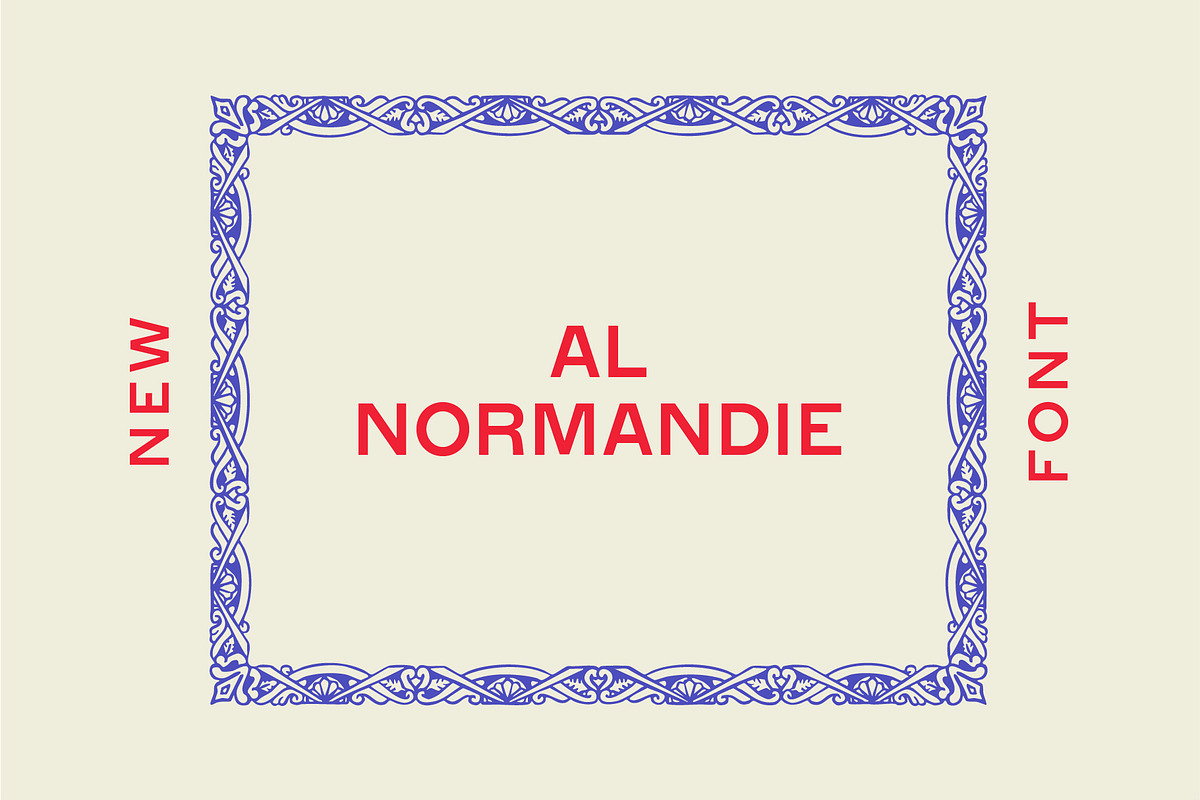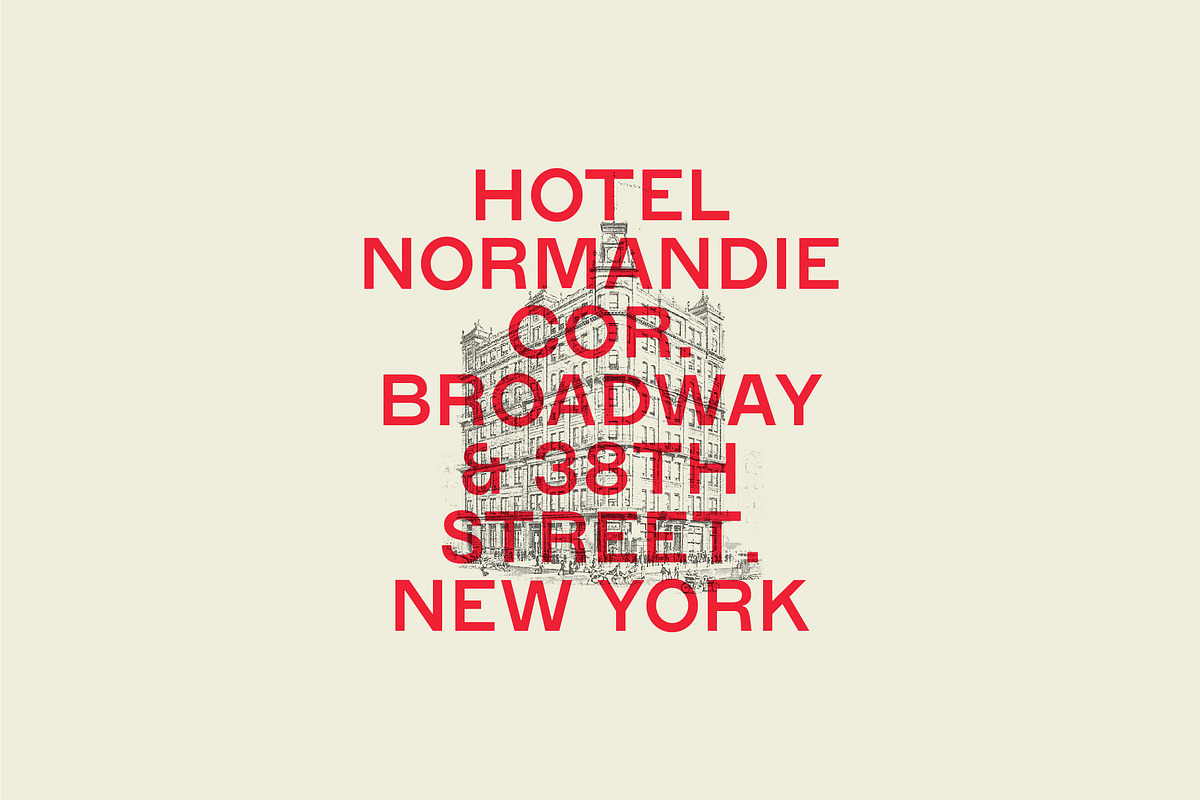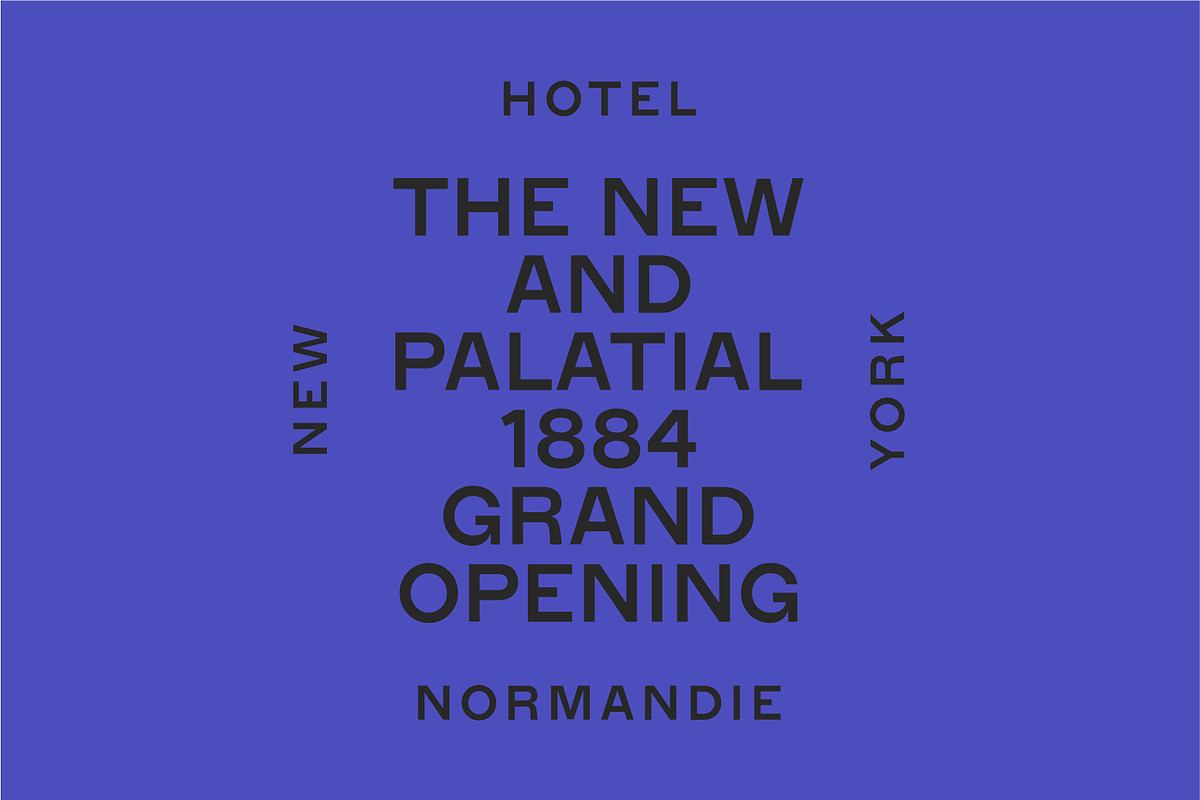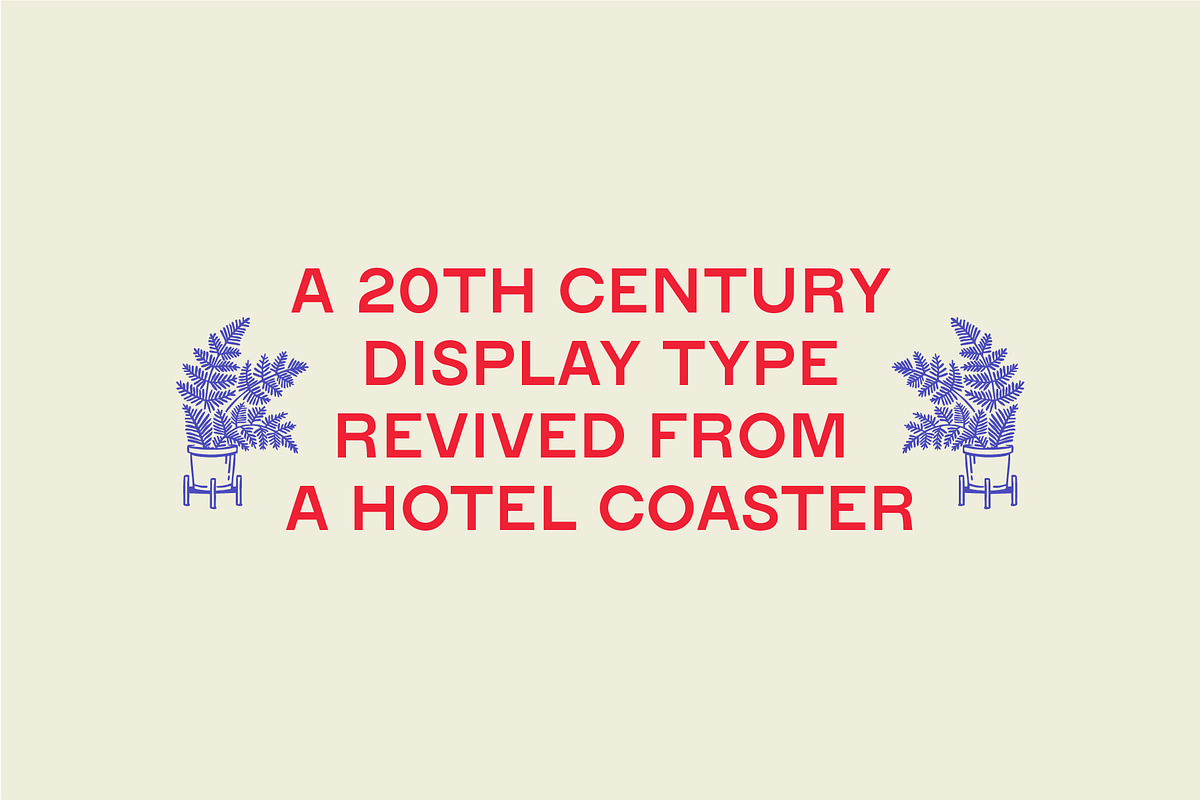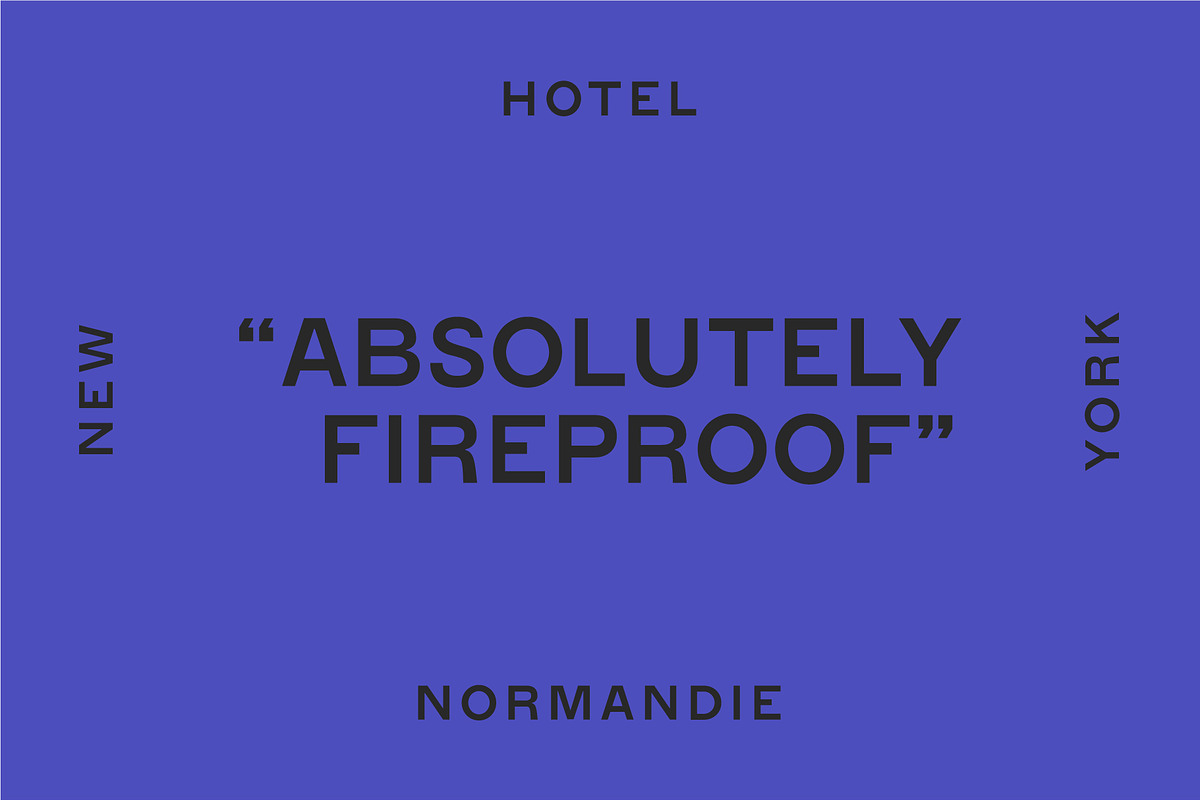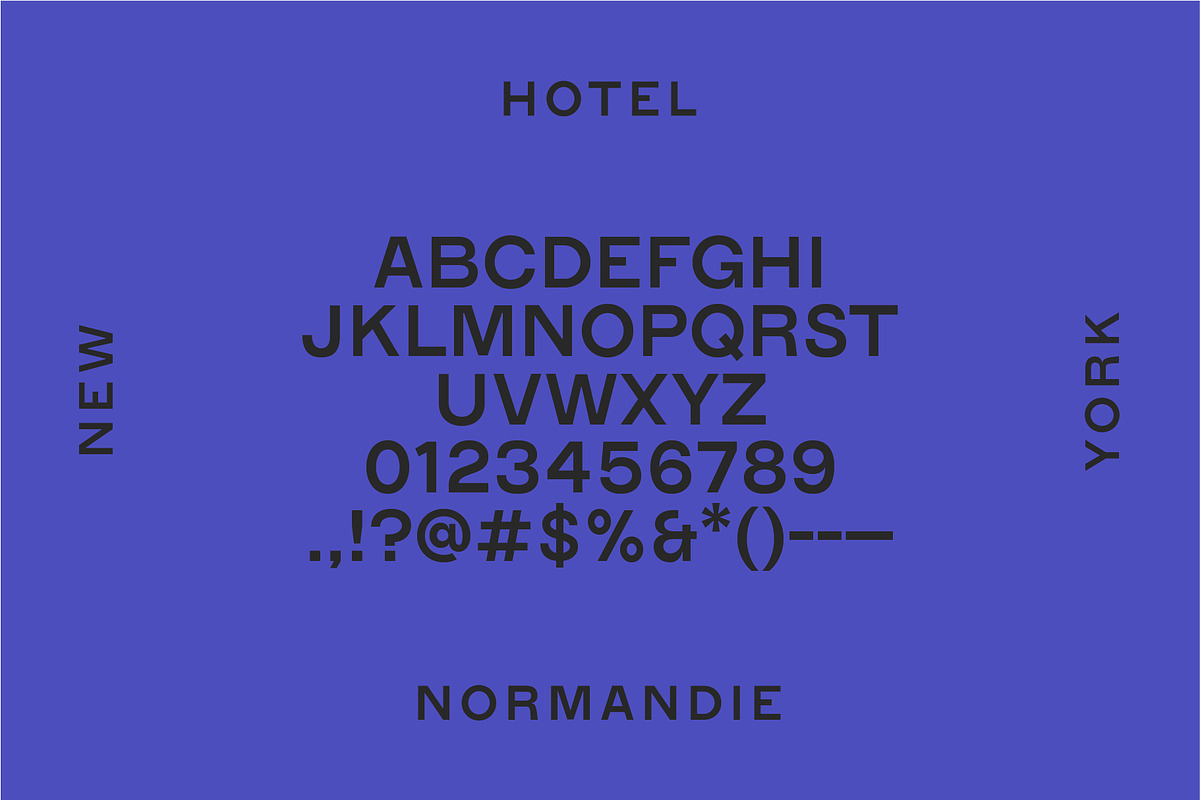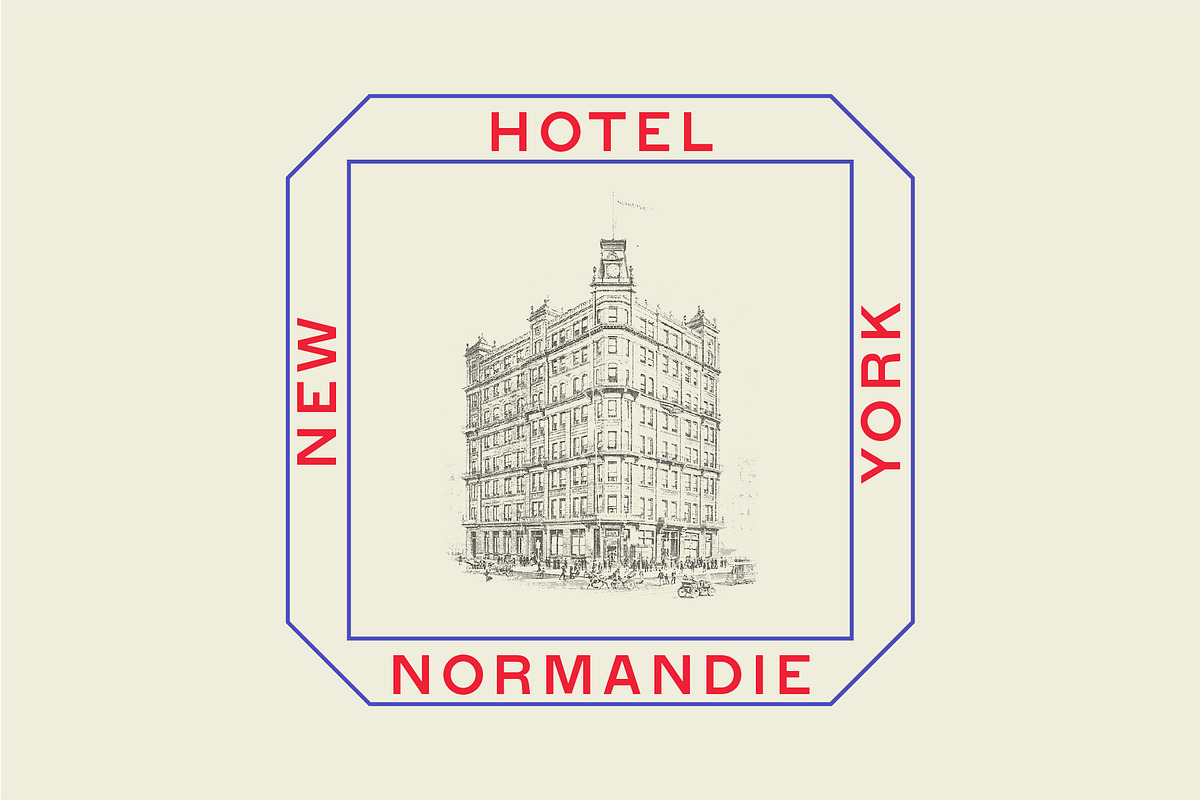
AL Normandie
AL Normandie is an uppercase sans serif display font, revived from an antique coaster from the Hotel Normandie in New York. The hotel was opened in 1884 and boasted the newest in modern luxuries: steam heat, speaking tubes, electric bells and more.
Normandie (the font) is equally bursting with modern amenities. Thoughtfully revived from the reference to maintain some vintage sans-serif charm, but updated with modern touches like pinched ink traps. The letterforms maintain a relatively square proportion and a mid-century feel. Perfect for restaurant and bar branding and menus. Clean, retro and like the hotel "Absolutely fireproof."